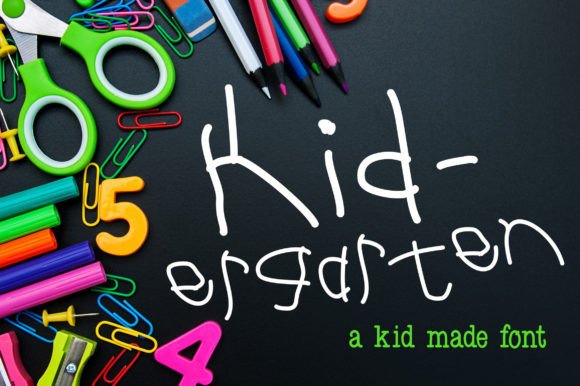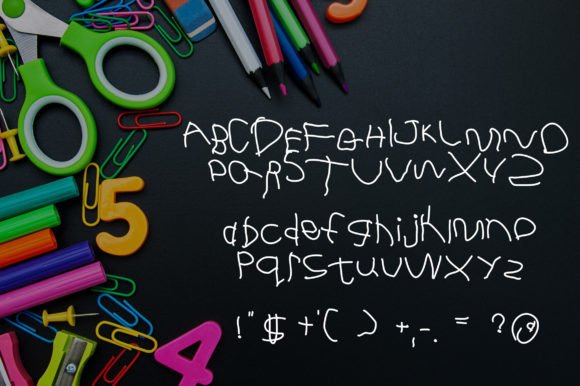
Kid-ergarten Font: A Playful Handwritten Font for Kids & Cricut
About the Kid-ergarten Font
Welcome to the world of Kid-ergarten Font, a typeface that will inspire your next great project. Kid-ergarten is a playful, hand-drawn font inspired by children’s writing, perfect for school projects, kid-friendly designs, or playful layouts. Its imperfect, whimsical style captures the essence of youthful creativity, making it a great choice for educational materials, children’s books, and fun party invitations. The font comes with uppercase and lowercase letters, numbers, and basic punctuation, giving you all the essentials to create something truly unique.
Kid-ergarten excels in headlines, short text blocks on posters or packaging, and playful branding elements where its whimsical nature adds personality. Avoid using it for body text or lengthy paragraphs; its informal style hinders readability in extended use. Consider pairing it with a clean sans-serif like Open Sans for a balanced contrast, or a more geometric sans-serif for a modern feel.
The font’s core personality is undeniably playful and friendly, conveying a sense of childlike wonder and creativity. It’s ideal for brands targeting a young audience or those wishing to project a lighthearted, approachable image. For a slightly more sophisticated touch, consider pairing it with a classic serif like Garamond.
Using Kid-ergarten with a script font like Allura could add an extra layer of whimsicality for projects like children’s book covers or invitations, though careful consideration of legibility is crucial in such pairings.
Kid-ergarten Font Usage Examples
Kid-ergarten Font Example